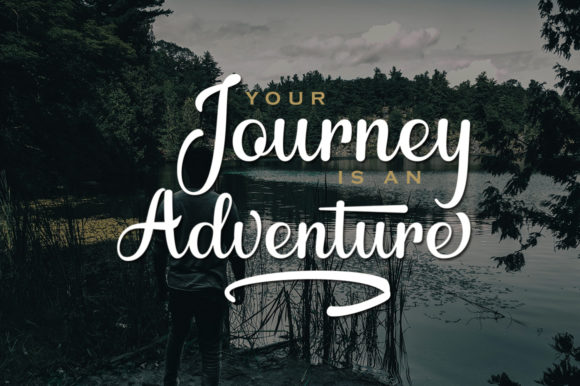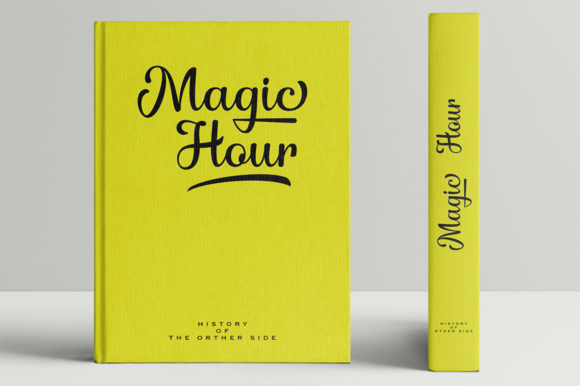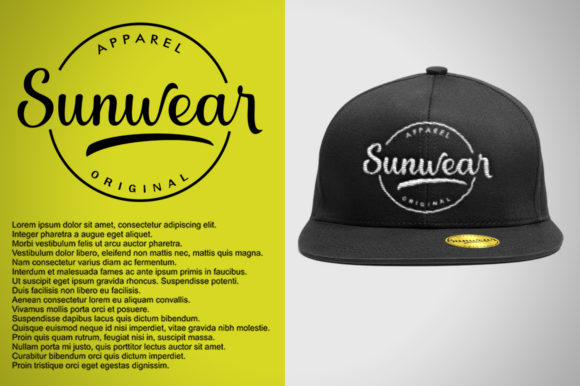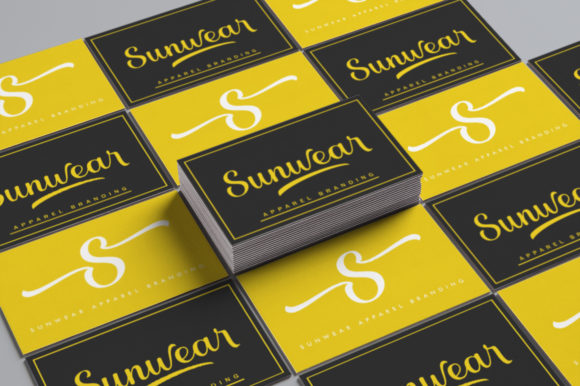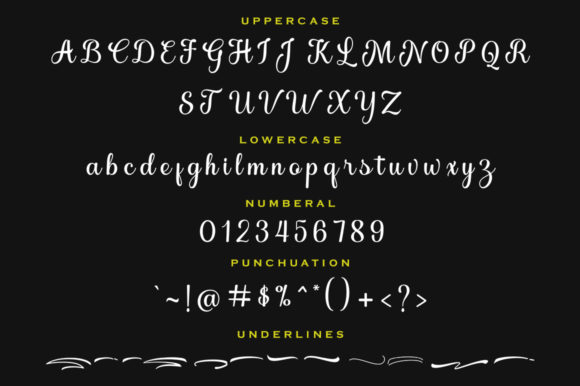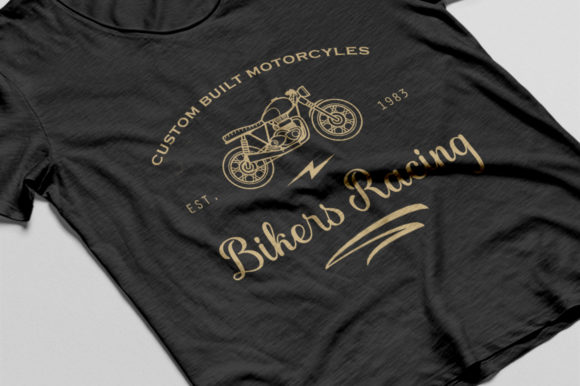
Introducing Brilliance Font: Elevate Your Designs with Elegance and Style
In the world of design, fonts play a crucial role in conveying the message and aesthetic of a brand or project. Among the myriad of fonts available, Brilliance Font stands out as a stunning cursive handwritten font that embodies readability, boldness, and style. Its smooth curves and elegant flow make it an ideal choice for fashion branding, editorial designs, and a wide range of creative projects. In this article, we’ll delve into the features of Brilliance Font, its compatibility with various design software, and how to make the most of this versatile font in your designs.
What is Brilliance Font?
Brilliance Font is a cursive handwritten font that boasts a unique blend of elegance and modernity. Its smooth curves and fluid lines give it a distinctive look that can instantly elevate the visual appeal of any design. Whether you’re working on fashion branding, editorial designs, or any project that demands a touch of sophistication, Brilliance Font is sure to impress.
Key Features of Brilliance Font
• Readable and Bold: Despite its elegant appearance, Brilliance Font is remarkably readable, making it suitable for both headings and body text.
• Stylish and Versatile: Its stylish curves and lines allow it to fit seamlessly into various design contexts, from fashion magazines to brand logos.
• Smooth Curves: The font’s design is characterized by smooth, flowing curves that add a touch of luxury and sophistication to any design.
• Color Font (Opentype-SVG): Brilliance Font comes as a color font in Opentype-SVG format, offering vibrant and dynamic color options for your designs.
Brilliance Font is a versatile and stylish cursive handwritten font that can add a touch of elegance and sophistication to any design project. With its readability, boldness, and smooth curves, it’s perfect for fashion branding, editorial designs, and more. By understanding its features, compatibility, and usage tips, designers and crafters can confidently incorporate Brilliance Font into their projects and enjoy stunning results.